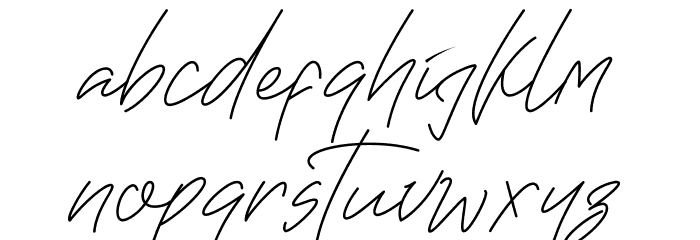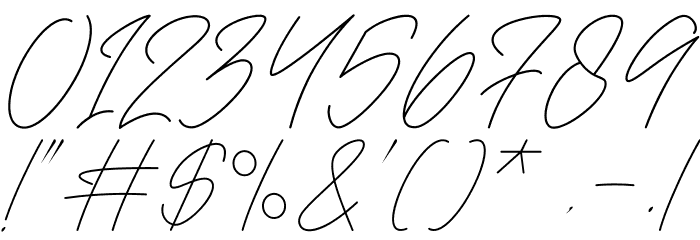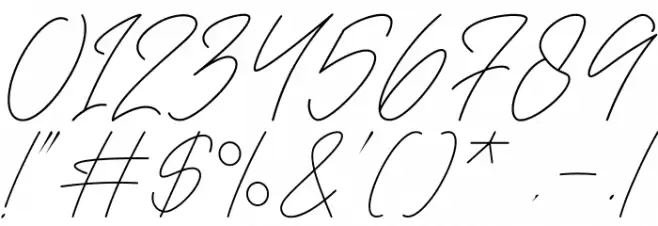
Darklight Font
This font features a fluid, cursive style that mimics natural handwriting with a modern twist. The letters are elegantly elongated with smooth, flowing lines, giving it a sophisticated and artistic appearance. The uppercase and lowercase letters maintain a consistent slant, enhancing the handwritten feel. The numerals and special characters are designed with the same fluidity, ensuring a cohesive look across all text. The overall design is both stylish and legible, making it suitable for a variety of creative applications.
A fluid, cursive font with a modern, handwritten style.
- Proposed Projects: Ideal for wedding invitations, personal branding, greeting cards, and artistic projects.
- Use Case: Logos, Invitations, Artistic projects